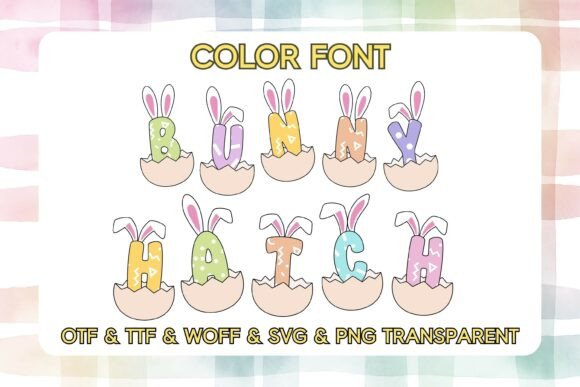
The Easter Bunny’s Gift: A Review of Bunny Hatch Color Font
As a designer, I’ve had my fair share of late nights scouring font libraries for that perfect, unique typeface to bring a project to life. Easter was approaching, and a client asked for a fun, vibrant design that embodied the spirit of the holiday. That’s when I stumbled upon Bunny Hatch Color Font, a delightful addition to my font collection that quickly became a favorite. 🐰
My Experience with Bunny Hatch Color Font
Working with Bunny Hatch Color Font was a breeze. The moment I opened the font files, I was greeted with a cheerful array of colorful patterns and adorable bunny ears popping out of eggs. The font’s playful design instantly captured the essence of Easter and springtime fun. I knew right then that this font was going to make my Easter design shine.
• ✨ Cute and Playful Design: Each character is infused with colorful patterns and whimsical bunny ears, making it perfect for Easter, kids’ projects, and fun designs.
• ✅ Versatility: Bunny Hatch Color Font comes with both color font files and standard font files, making it suitable for a wide range of projects, from digital designs to craft projects.
• 🌈 Ease of Use: The font is easy to navigate, and its OpenType features allow for seamless customization.
While Bunny Hatch Color Font is delightful, there are a few minor considerations to keep in mind:
• 🤔 Color Limitations: The color font files might not work as seamlessly in all design software. It’s essential to ensure compatibility before diving into your project.
• ⚠️ Legibility at Small Sizes: Due to its playful and detailed design, the font may lose legibility when used at very small sizes. It’s best used at larger sizes where its charm can shine.
The Story Behind Bunny Hatch Color Font
Bunny Hatch Color Font was inspired by the joy and whimsy of Easter morning. The designer aimed to create a font that not only captured the essence of the holiday but also brought a smile to users’ faces. With its colorful patterns and adorable bunny ears, this font is sure to add a touch of Easter magic to any project.